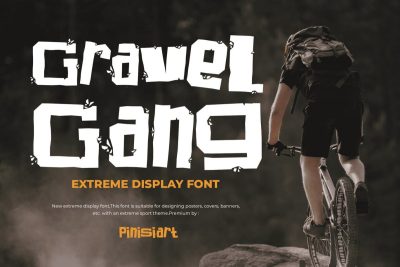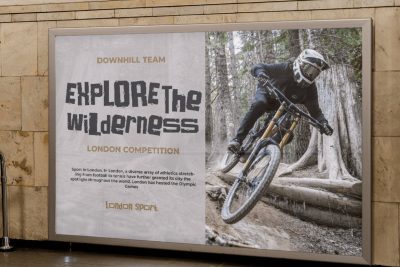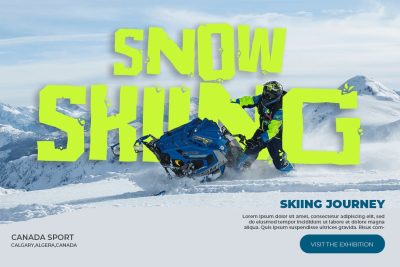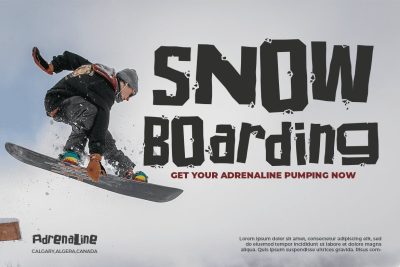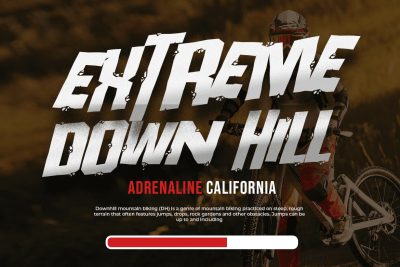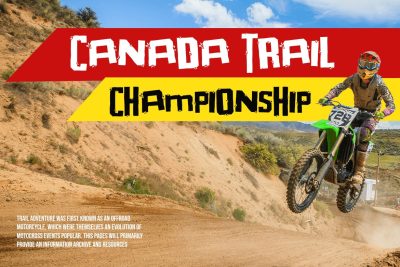
Racing Font Gravel Gang
Gravel Gang
Racing Font Gravel Gang is a rugged, high-adrenaline typeface designed to capture the raw energy of extreme sports and off-road racing. With its rough, edgy letterforms and bold, distressed look, this font adds a gritty and dynamic feel. Moreover, inspired by dirt trails, rocky terrains, and high-speed action, Gravel Gang embodies adventure and endurance.
The bold, irregular strokes and weathered edges give Gravel Gang a rebellious character. Furthermore, this makes it an excellent choice for designs that need impact and attitude. Whether for branding, merchandise, or promotional materials, this font ensures that every word stands out with strength and excitement. Additionally, its rugged aesthetic is perfect for outdoor and motorsports designs, where toughness and resilience matter.
Moreover, Gravel Gang is highly versatile. It maintains its striking appeal across different media, from digital banners to printed posters. As a result, whether designing for sports apparel, event branding, or extreme sports content, this font delivers a strong visual identity that captures action and movement.
Racing Font Gravel Gang Who is it for?
Racing Font Gravel Gang is perfect for designers, brands, and creators who need a font that radiates energy, adventure, and rugged style. More specifically, it works best for:
• Motorsports and Off-Road Racing Brands: Ideal for dirt bike teams, rally car events, and adventure sports businesses. Consequently, Gravel Gang enhances logos, vehicle graphics, and event banners with an aggressive, action-packed look.
• Extreme Sports and Outdoor Brands: Perfect for mountain biking, BMX, skateboarding, and other action sports. Additionally, the bold, textured design connects with outdoor enthusiasts and adrenaline seekers.
• Gaming and eSports: A great fit for competitive gaming teams and adventure-themed video games. Moreover, the distressed, high-energy style adds an edgy, immersive feel to branding and in-game graphics.
• Streetwear and Lifestyle Brands: Works well for fashion labels focused on urban, skate, or outdoor-inspired apparel. Furthermore, Gravel Gang’s bold presence enhances t-shirts, hoodies, and accessories.
• Event Promotions and Posters: Great for extreme sports competitions, outdoor festivals, and motorsports tournaments. As a result, its striking design ensures visibility and engagement.
• YouTubers and Content Creators: Automotive, adventure, and gaming influencers can use this font for thumbnails, banners, and branding. Ultimately, it makes their content visually bold and memorable.
Racing Font Gravel Gang is the ultimate choice for projects that demand grit, energy, and power. Most importantly, whether branding an extreme sports event, designing streetwear, or promoting off-road adventures, this font ensures your visuals stand out with raw intensity and style.
Spitting tones, the sound of grinding gravel road crush by the bicycle. This is what the extreme sports world needed.